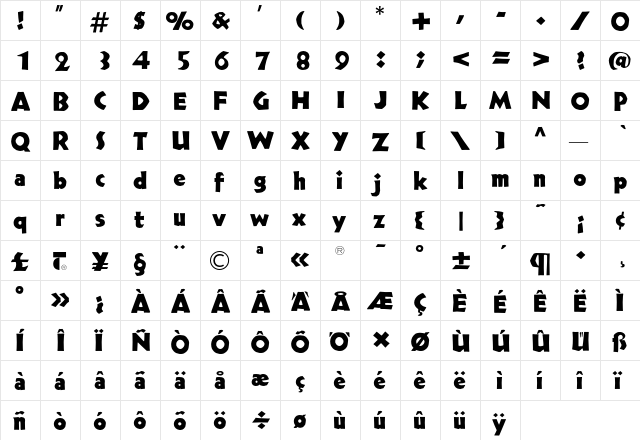
NeueNeulandTF Bold
Design Context for NeueNeulandTF Typeface
NeueNeulandTF takes a measured approach to typography — its balanced proportions and neutral character make it a reliable workhorse for both digital and print work. The heavy weight commands attention and anchors typographic hierarchies.